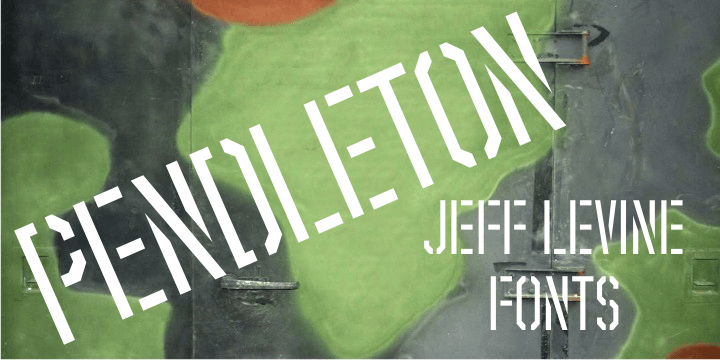
Pendleton
Pendleton JNL was created from some scant images found on military machinery housed at the Marine Corps Mechanized Museum at Camp Pendleton, California. The photos were provided by Brian Platzer, a volunteer at the base who specializes in equipment restoration.
Having used other stencil fonts by Jeff Levine, Brian thought the design of these hand-crafted markings might make another addition to Jeff's vast library of vintage stencil alphabets.